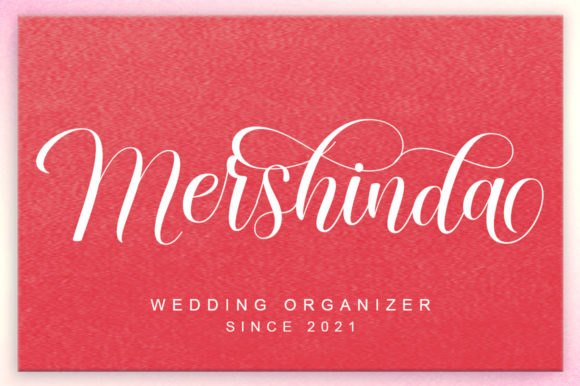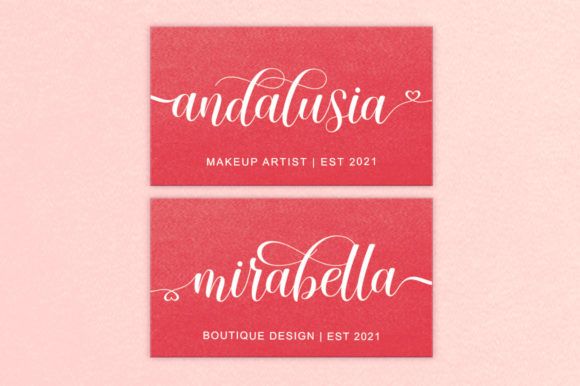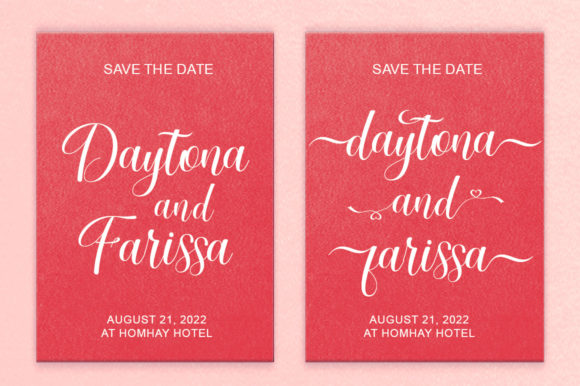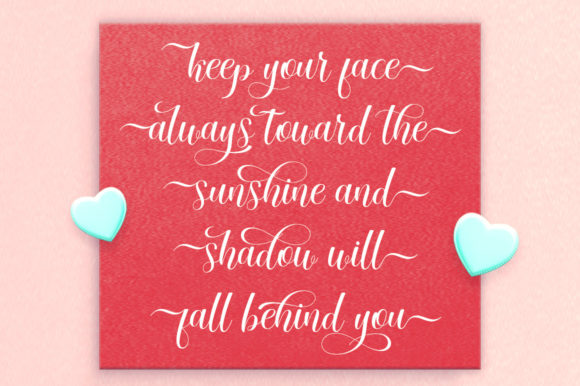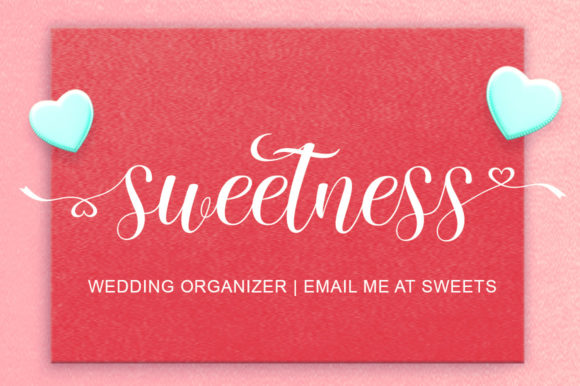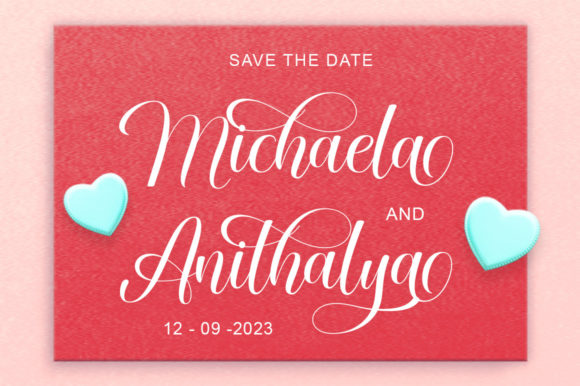
Introducing Heikal Script Font: Elevate Your Designs with Luxury and Elegance
Are you a designer or crafter looking for a font that can add a touch of luxury and sophistication to your projects? Look no further than the Heikal Script Font. This beautiful light handwritten font is designed to make a stunning impact, and its unique feel is sure to set your designs apart from the rest.
The Beauty of Heikal Script Font
Heikal Script Font is a gorgeous, elegant font that is perfect for a wide range of design projects. Its light, airy feel gives it a sense of sophistication and luxury, making it ideal for use in high-end branding, packaging, and advertising. The font’s unique feel is both modern and classic, allowing it to work seamlessly in a variety of design contexts.
What Sets Heikal Script Font Apart
So, what makes Heikal Script Font so special? For starters, it’s PUA encoded, which means that you can access all of the amazing glyphs and ligatures with ease. This font is designed to be versatile and easy to use, making it perfect for designers and crafters of all skill levels. Whether you’re creating a logo, a brochure, or a social media graphic, Heikal Script Font is the perfect choice.
Key Features of Heikal Script Font
- Beautiful Light Handwritten Font: Heikal Script Font is a gorgeous, elegant font that is perfect for adding a touch of luxury to your designs.
- Unique Feel: This font has a unique feel that is both modern and classic, making it perfect for a wide range of design projects.
- PUA Encoded: Heikal Script Font is PUA encoded, making it easy to access all of the amazing glyphs and ligatures.
- Stunning Impact: This font is designed to make a stunning impact, and its light, airy feel gives it a sense of sophistication and luxury.
How to Use Heikal Script Font in Your Designs
Heikal Script Font is incredibly easy to use, and its versatility makes it perfect for a wide range of design projects. Here are a few ideas for how you can use this beautiful font in your designs:
- Branding: Use Heikal Script Font to create a luxurious and sophisticated brand identity that will set your business apart from the competition.
- Packaging: Add a touch of elegance to your packaging designs with Heikal Script Font.
- Advertising: Use this font to create eye-catching ads that will grab the attention of your target audience.
- Social Media Graphics: Heikal Script Font is perfect for creating social media graphics that are both stylish and engaging.
Tips for Getting the Most Out of Heikal Script Font
Here are a few tips for getting the most out of Heikal Script Font:
- Experiment with Different Sizes and Colors: Don’t be afraid to experiment with different sizes and colors to find the perfect look for your design.
- Pair it with Other Fonts: Heikal Script Font pairs perfectly with a wide range of other fonts, so don’t be afraid to get creative and try out different combinations.
- Use it to Create a Sense of Hierarchy: Use Heikal Script Font to create a sense of hierarchy in your design, and draw attention to key elements.
In conclusion, Heikal Script Font is a beautiful, elegant font that is perfect for designers and crafters looking to add a touch of luxury and sophistication to their designs. Its unique feel, stunning impact, and ease of use make it a versatile and valuable addition to any design project. Whether you’re creating a logo, a brochure, or a social media graphic, Heikal Script Font is the perfect choice.